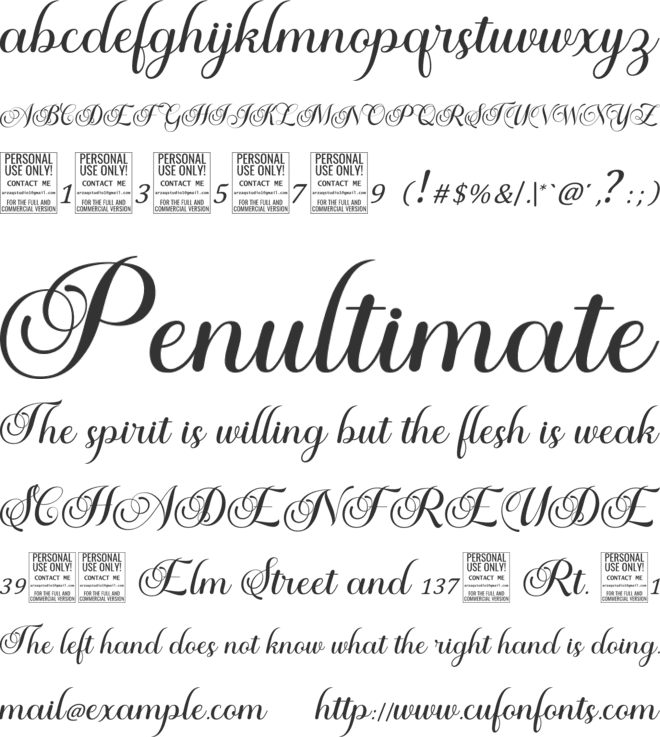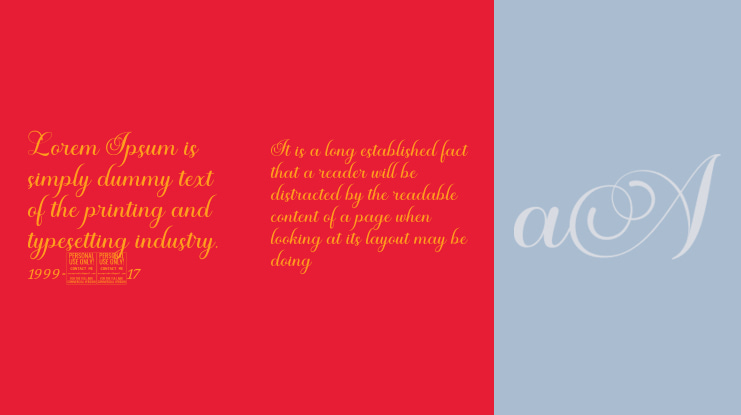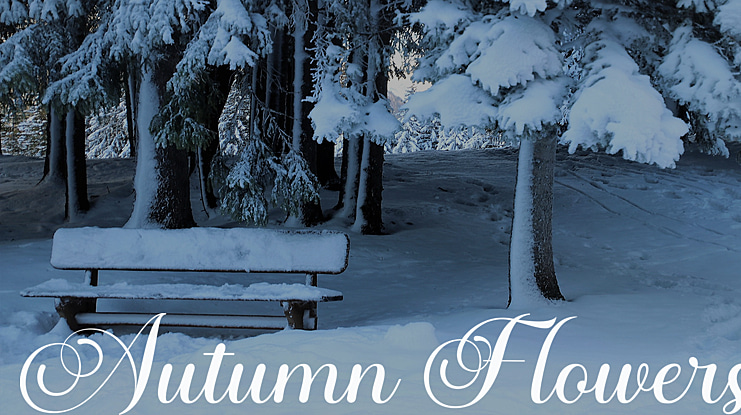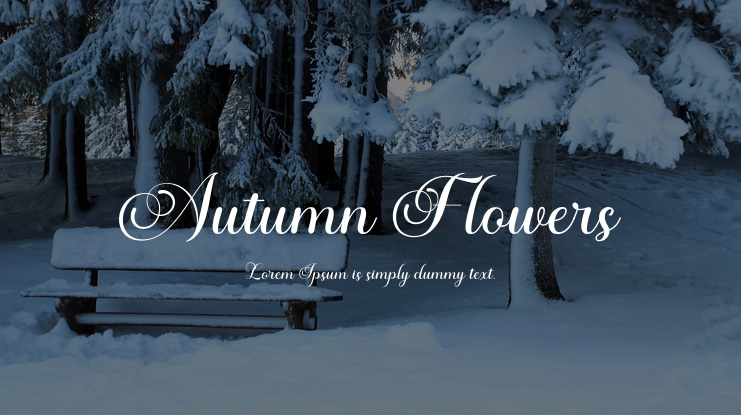
Autumn Flowers Font
Autumn Flowers is a modern and stylish calligraphy script font, carefully created with a touch of elegance in every character. It will help you create projects with a personal note that expresses confidence and exuberant energy. This font is suitable for any project like wedding invitations, fashion branding, logotypes, and more! This font is PUA encoded which means you can access all the glyphs and ligatures with ease!